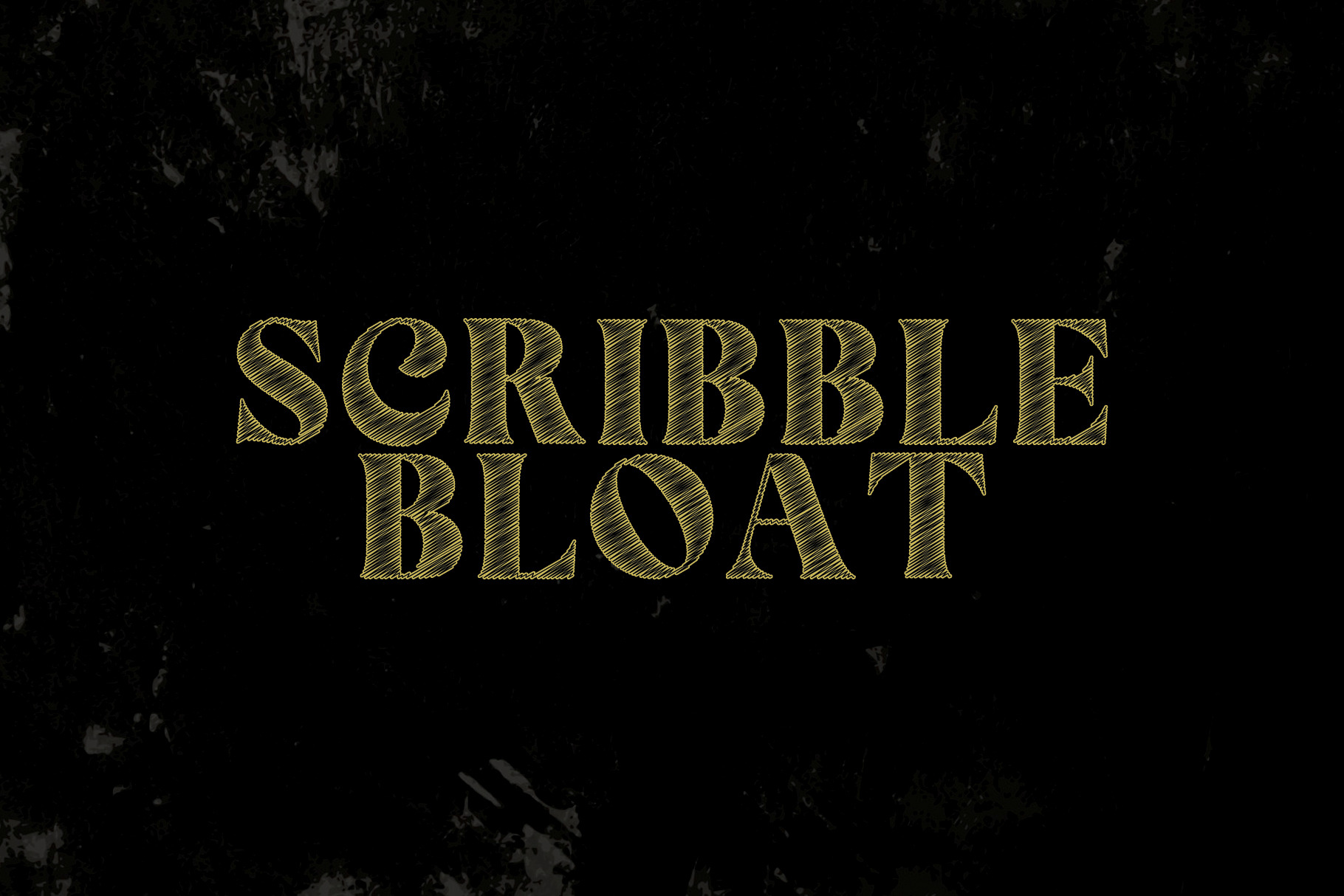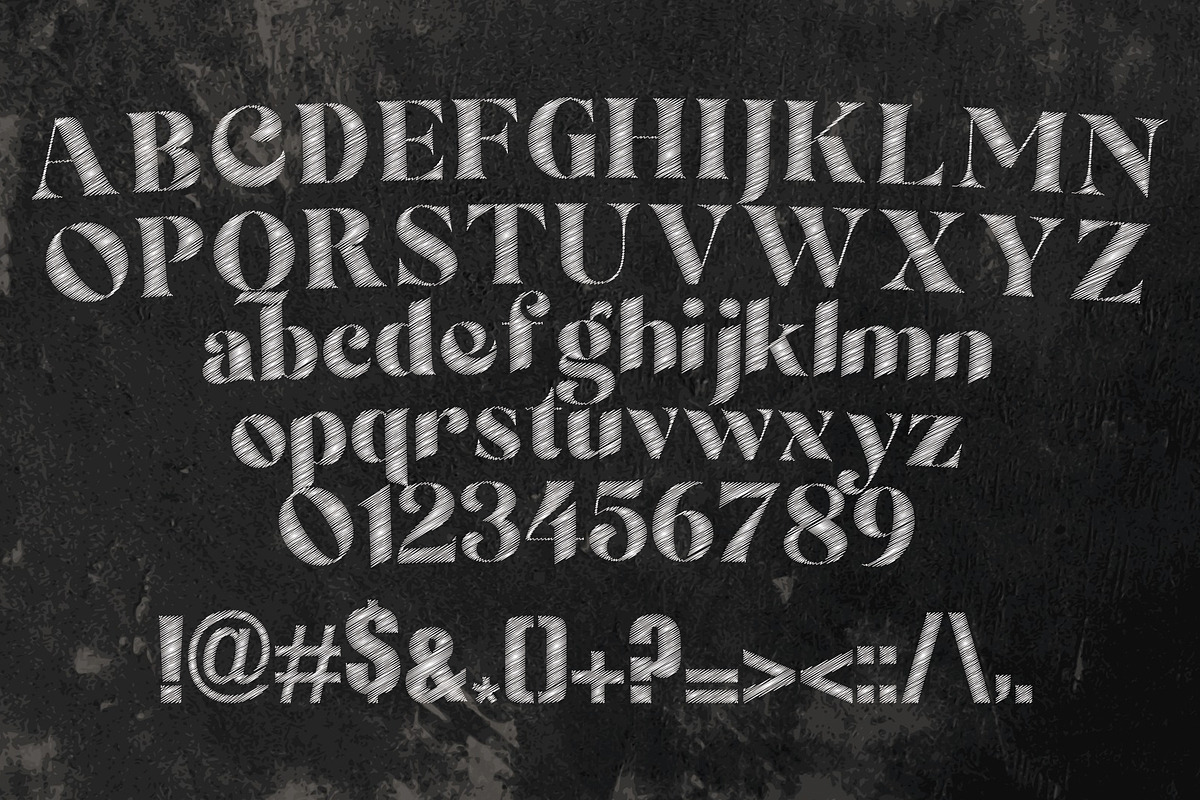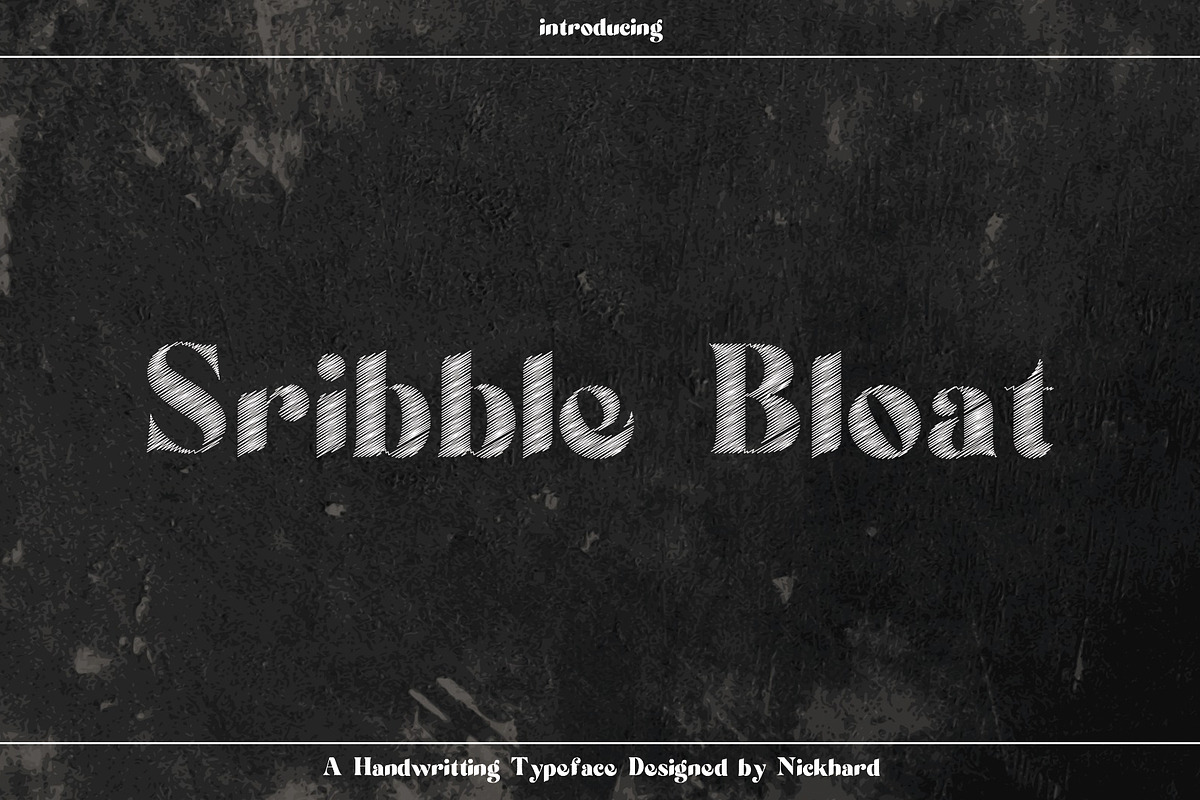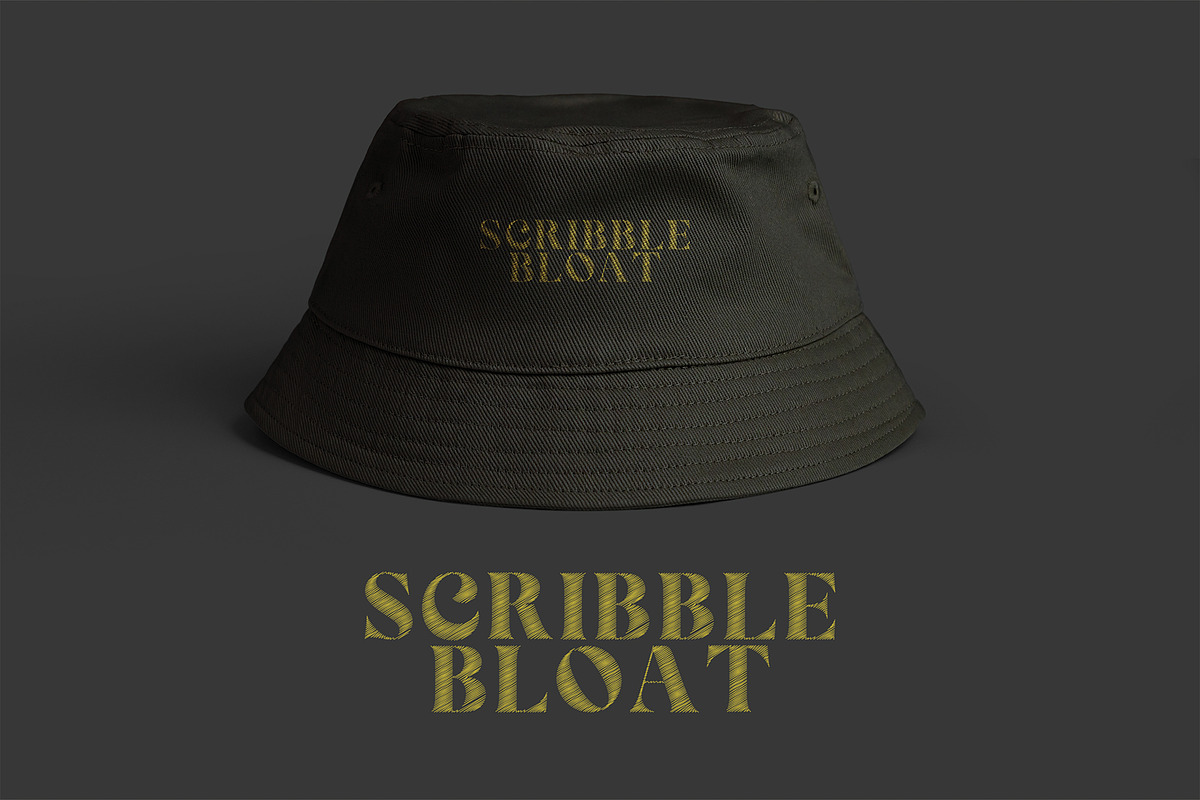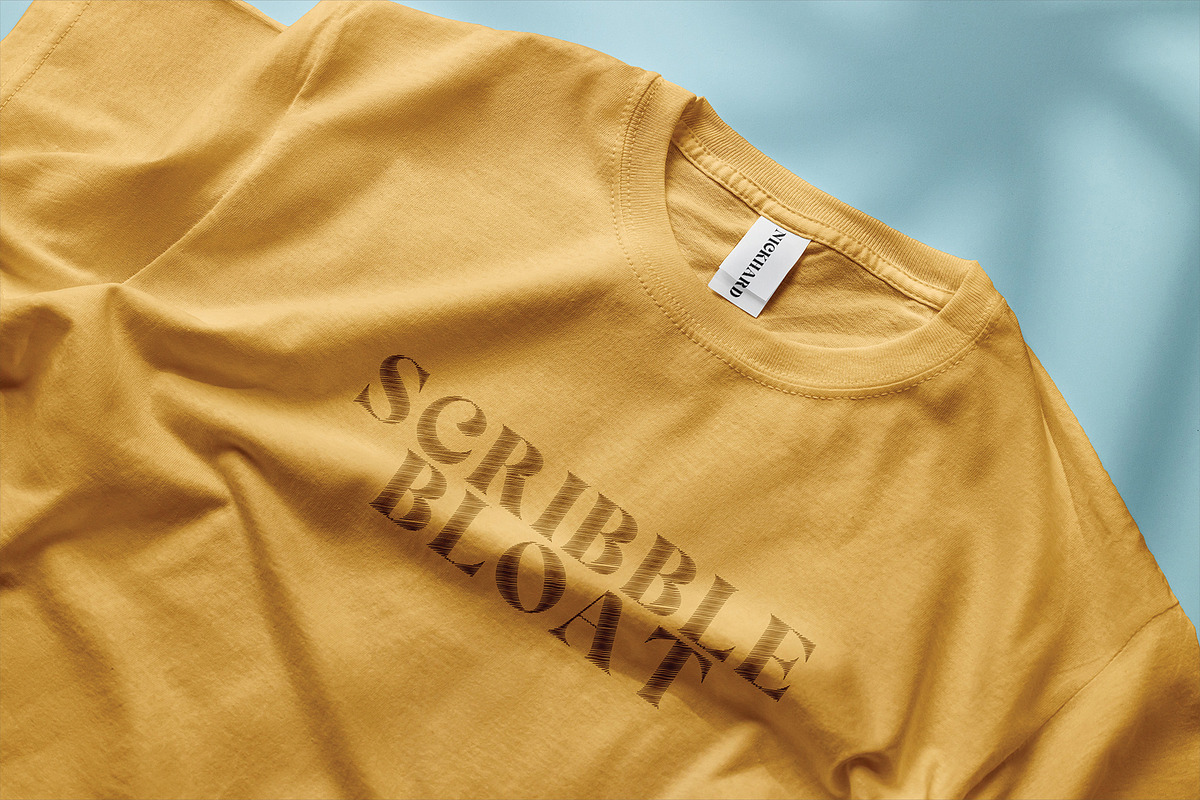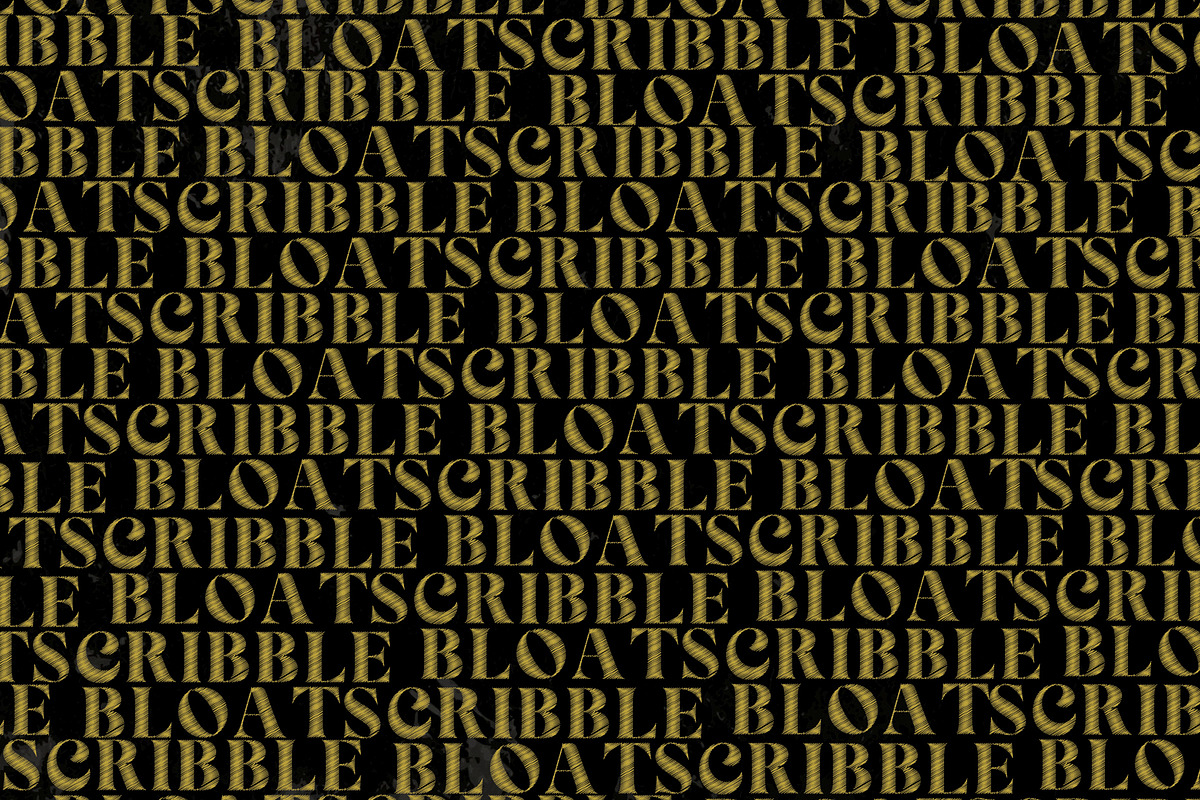
Scribble Bloat Serif Font
Scribble Bloat is a font that you can instantly download in OTF, TTF and SVG format. You can use this font in Photoshop, Illustrator, or any other program that will allow you to import fonts. You want to add more rawness to your design. The Scribble Bloat Font comes in Unbored Scribbles style, making your voice louder. Scribble Bloat is handwritten font. You can also combine any character with a Scribble Bloat Font and alternates for an incredible combination!
This font is perfect for your display project for headlines, quotes, editorial design, print posters, Tshirt, and much more.